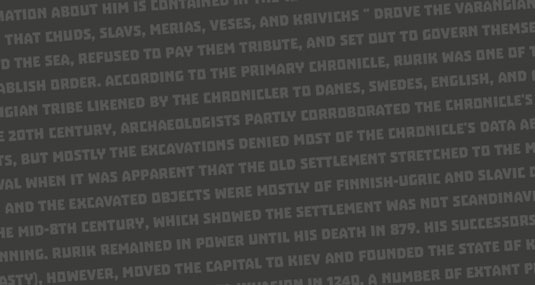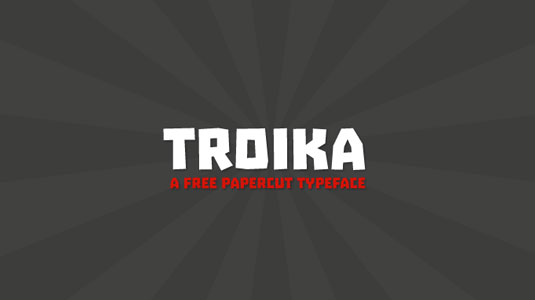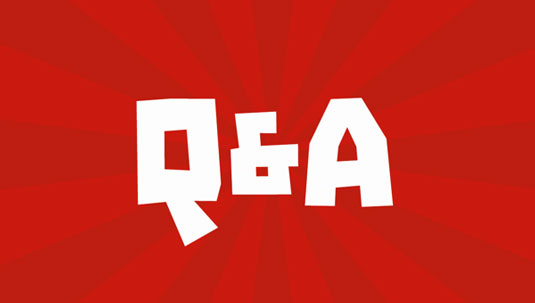
Font of the day: Troika
Troika by Joël Carrouché
Kicking off our fonts of the week is Troika. Inspired by Russian constructivism, Troika was created by graphic and type designer Joël Carrouché.